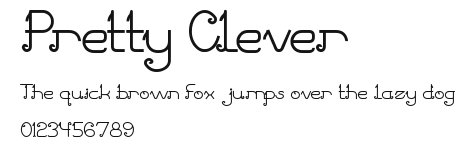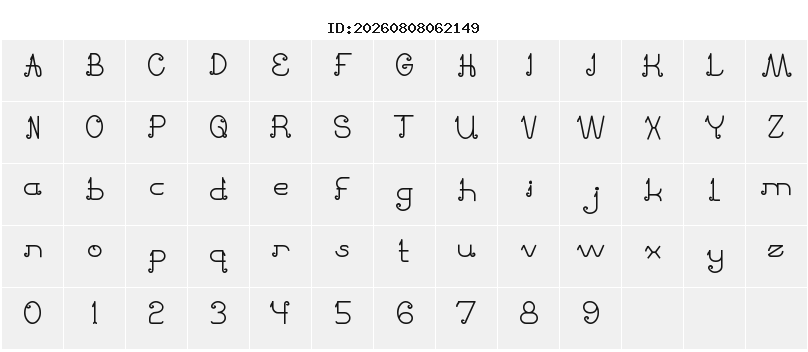
Pretty Clever Preview
• Font Name: Pretty Clever
About Pretty Clever.ttf
Pretty Clever.ttf is a modern, elegant sans-serif font designed for ultimate readability and visual harmony. Perfect for branding, headlines, web design, and print materials.